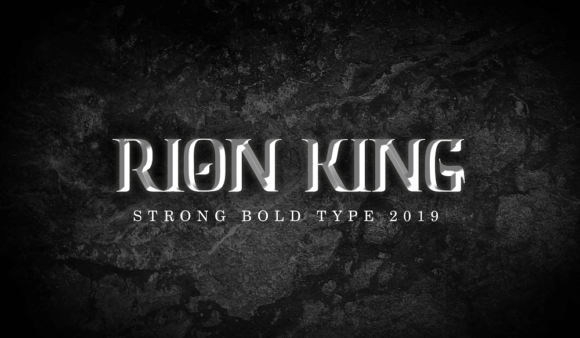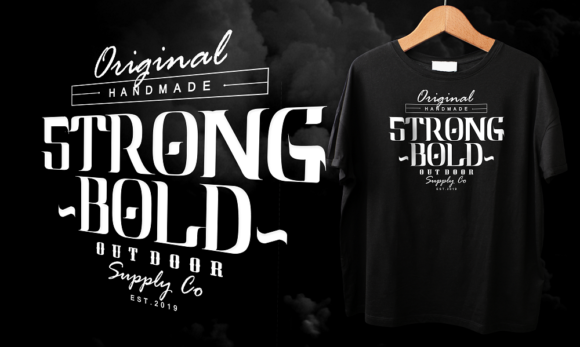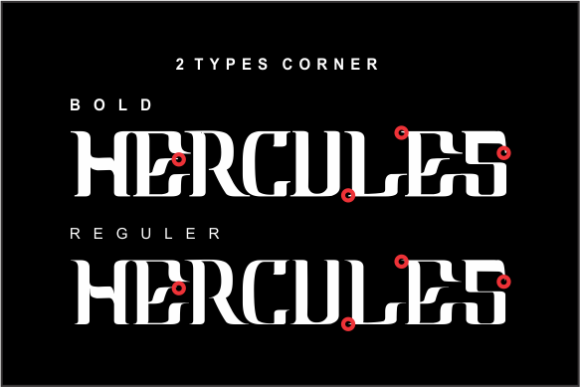
Introduction to Raven Font
The Raven is a striking black letter font.
It was inspired by the sub-text of a book and includes two variations with amazing sharpness It is suitable for use in various media such as headlines, posters, magazines, newspapers, t-shirts, labels, and any other designs that require a striking touch.